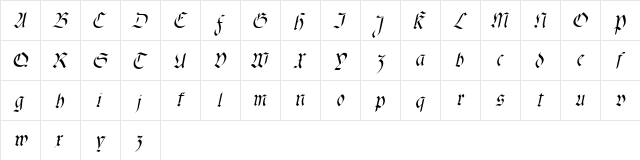
fracta Italic
Design Context for fracta Typeface
fracta is a composed and adaptable typeface that performs quietly and consistently across a wide range of design contexts. The dynamic lean of this cut emphasises speed and emphasis in any layout.
Pro Tip: Try fracta for annotation and caption copy alongside an upright companion — the contrast in angle creates a dynamic but ordered typographic system.